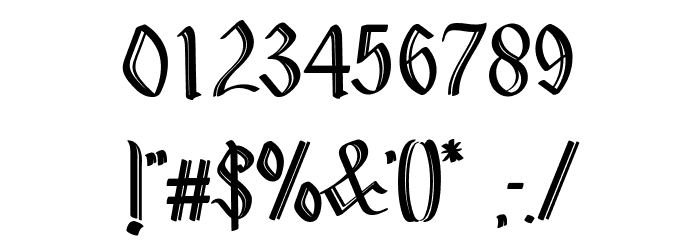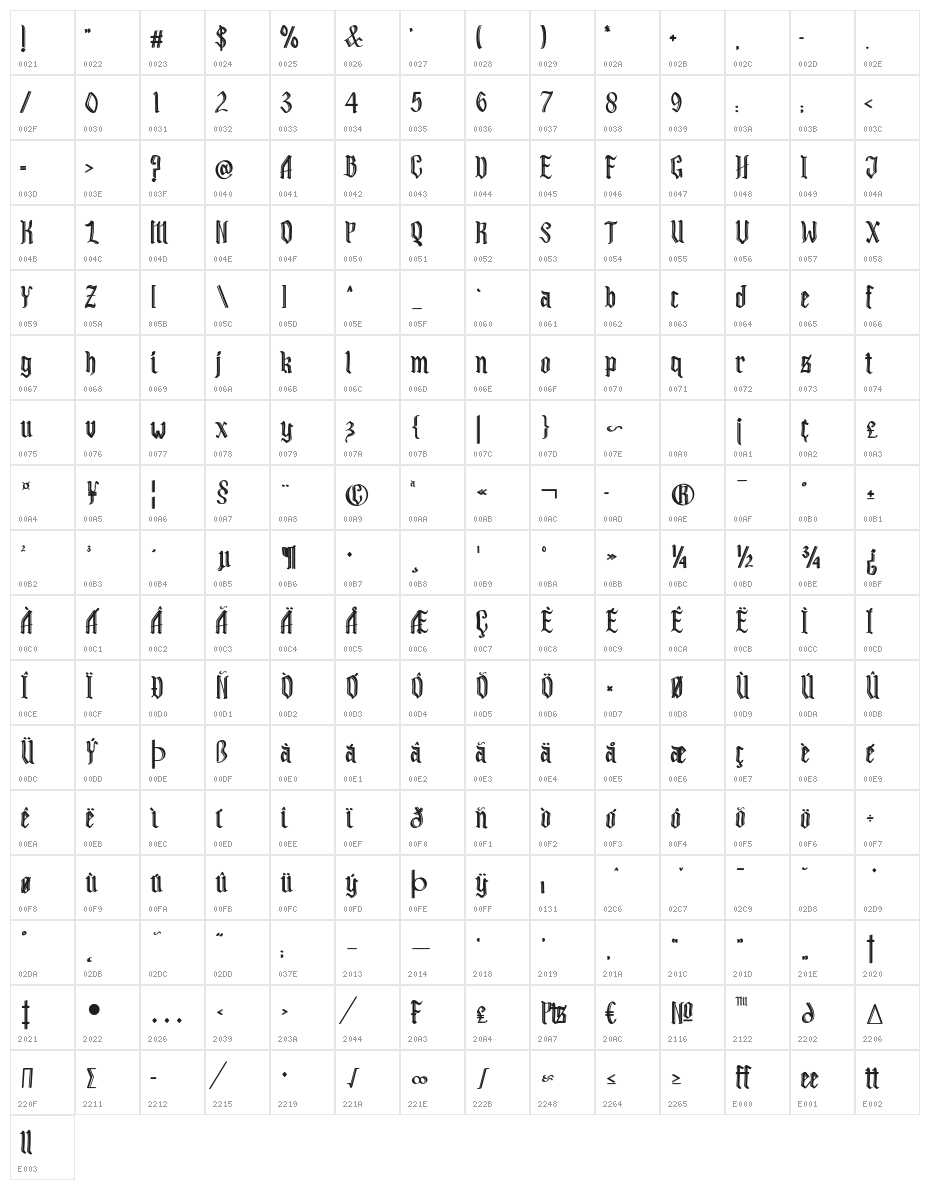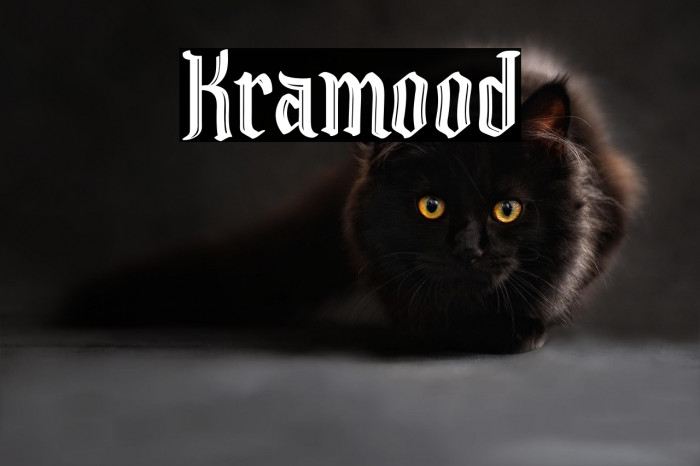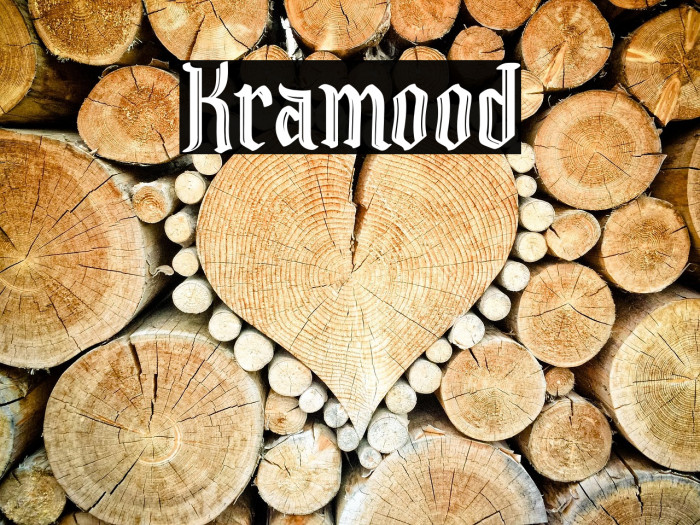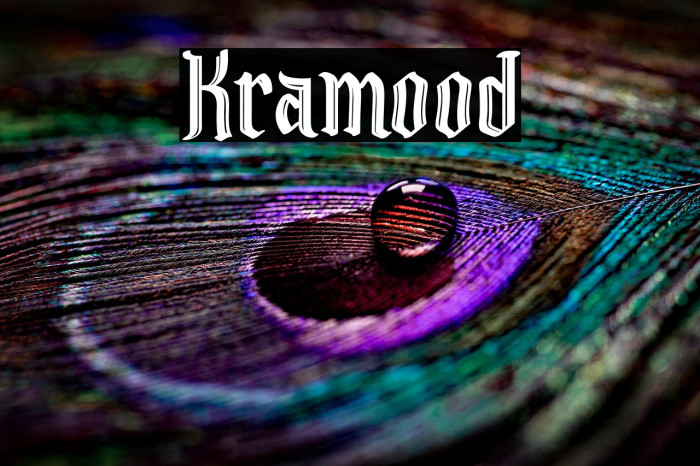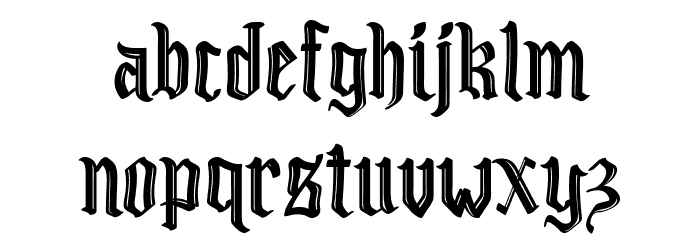
Kramood Font
Kramood Description
This font features a bold and dramatic style, reminiscent of traditional Blackletter typefaces. The characters are ornate with sharp, angular lines and intricate detailing, giving them a gothic and medieval appearance. The uppercase letters are particularly striking, with strong vertical strokes and decorative serifs. The lowercase letters maintain the same level of detail, ensuring consistency throughout the typeface. Numbers and special characters are designed to match the overall aesthetic, making this font suitable for projects that require a historical or formal touch.
| Overall Style | Gothic, Medieval, Classic |
| Use Case | Headlines, Logos, Decorative text |
| Proposed Projects | Ideal for use in historical documents, certificates, book covers, posters, and branding that requires a classic or medieval touch. |